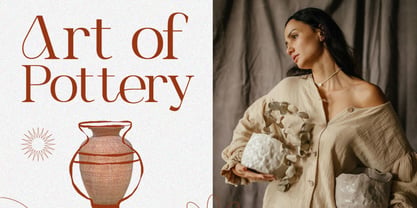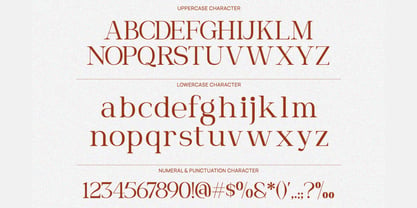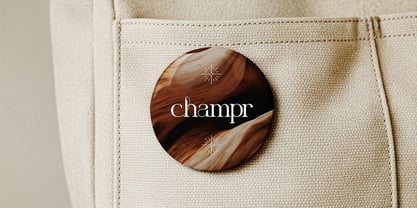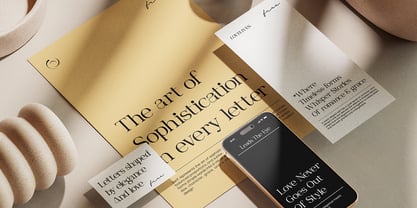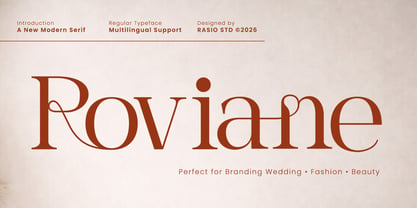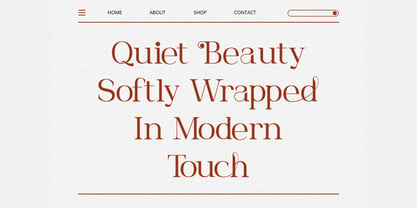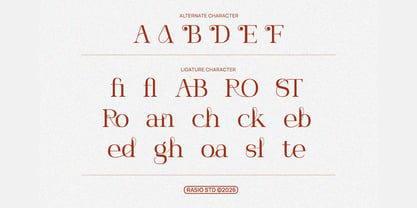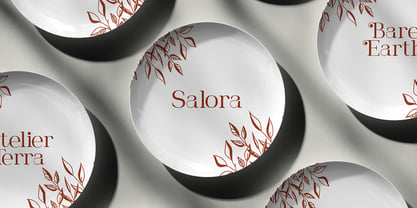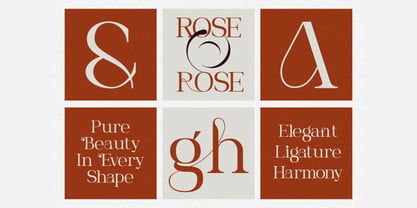
Roviane
by Rasio Studio
The Roviane Font Family was designed by Fajar Indra and published by Rasio Studio. Roviane contains 1 styles. More about this family
Roviane showcases a refined modern serif style with graceful curves and delicate contrast. The letterforms feature smooth transitions, subtle high-contrast strokes, and distinctive ligature-inspired details that add a sense of elegance and sophistication. Relevance and Use Cases is perfect for branding identity, wedding invitations, fashion editorials, beauty product packaging, luxury logos, magazine layouts, social media design, typography posters, boutique branding, cosmetic labels, photography watermarks, and elegant visual storytelling projects.
Designers: Fajar Indra
Foundry: Rasio Studio